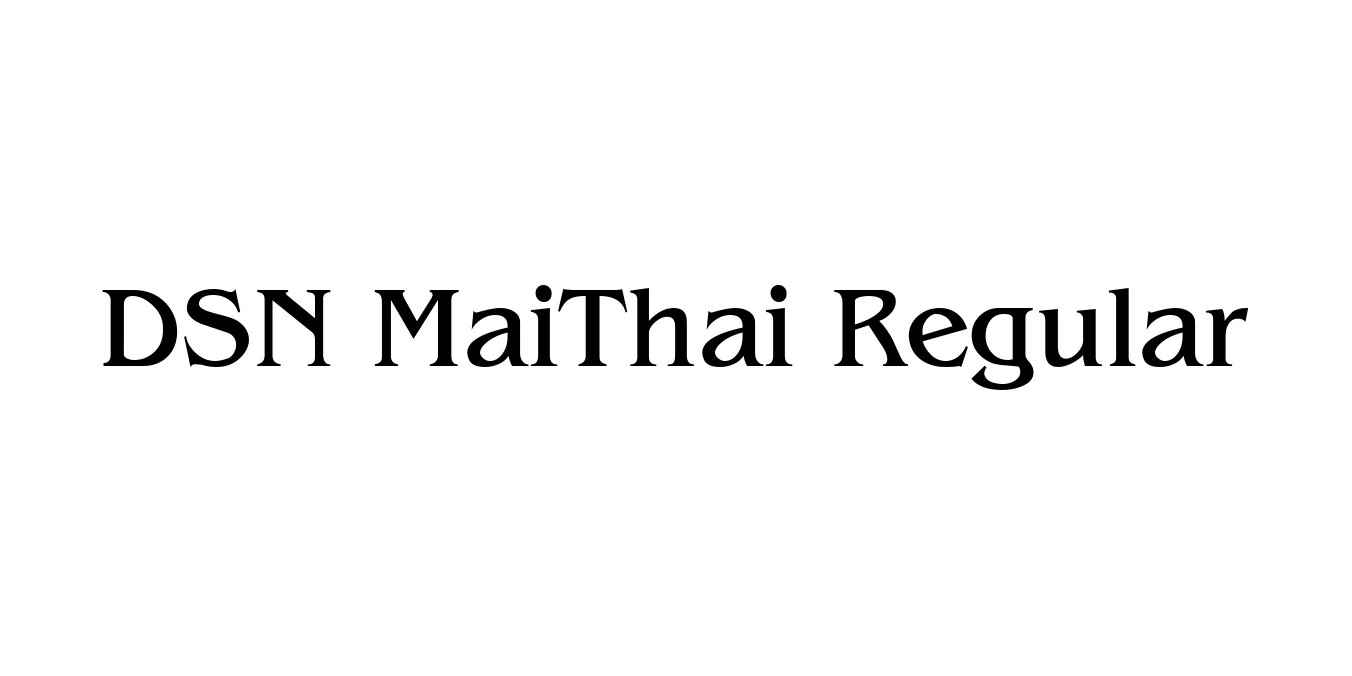
DSN MaiThai Regular
Designed by Dusit Supasawat
| Font Name | DSN MaiThai |
| Category | Thai Decorative / Display |
| Designer | Dusit Supasawat |
DSN MaiThai Regular is a specialized typeface designed by the renowned Thai designer Dusit Supasawat. This font captures the essence of Thai cultural identity, featuring unique decorative flourishes and a traditional stroke structure that evokes the elegance of classical Thai calligraphy. It was developed to provide a bridge between ancient artistic styles and modern digital typography, making it a staple for projects requiring an authentic Southeast Asian aesthetic.
Widely recognized for its intricate letterforms, DSN MaiThai is frequently employed in high-end branding, tourism brochures, and cultural event posters. The font maintains a high level of legibility while offering a distinct visual flair that sets it apart from standard sans-serif or serif families. Its versatility across both print and digital mediums has made it a favorite among graphic designers looking to impart a sense of heritage and tradition into their creative works.
DSN MaiThai Regular Best Uses
Perfect for creating logos and identities for Thai-themed businesses and cultural events.
Ideal for brochures, travel guides, and posters promoting Southeast Asian destinations.
Adds an authentic and traditional touch to Thai cuisine menus and interior signage.
Suitable for book covers and magazine headlines focused on Asian history or art.